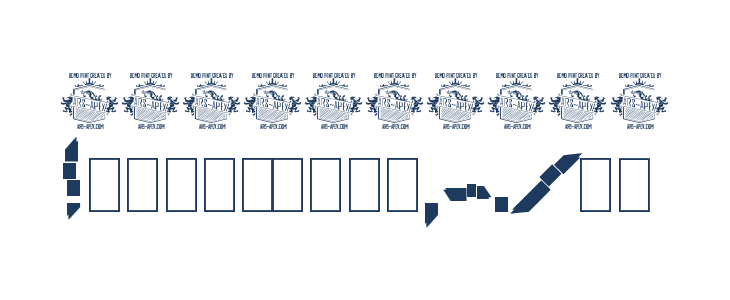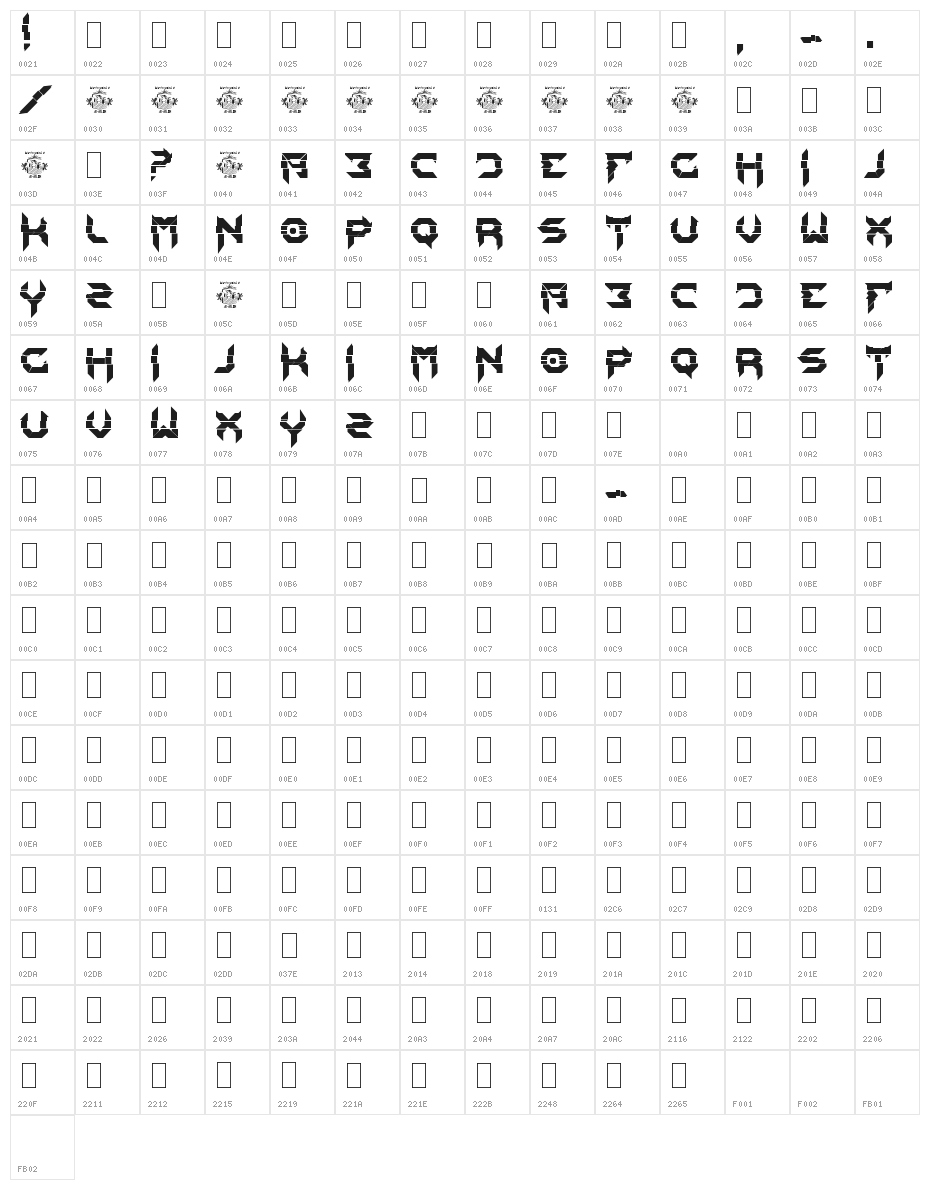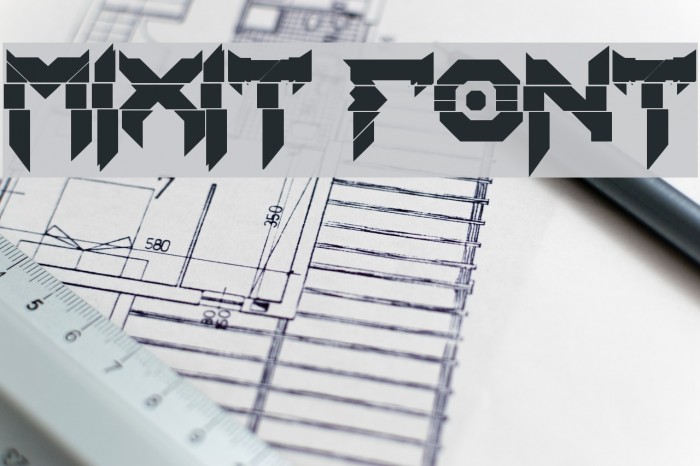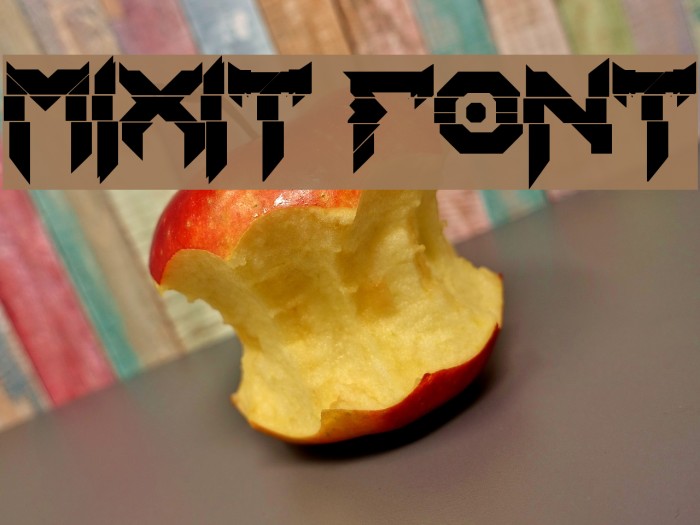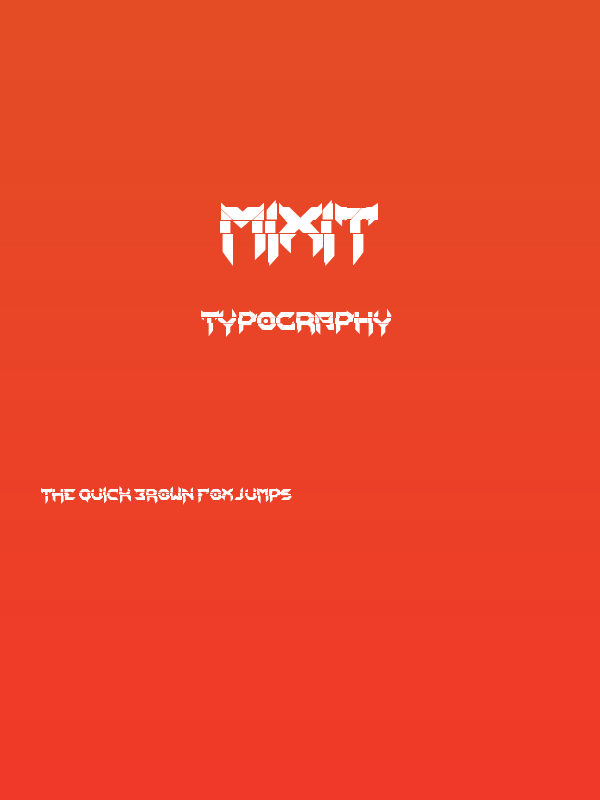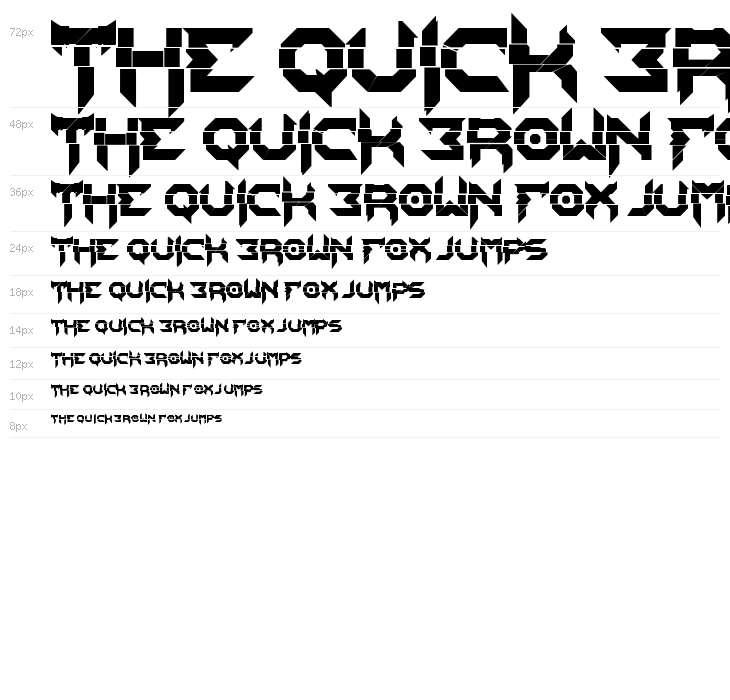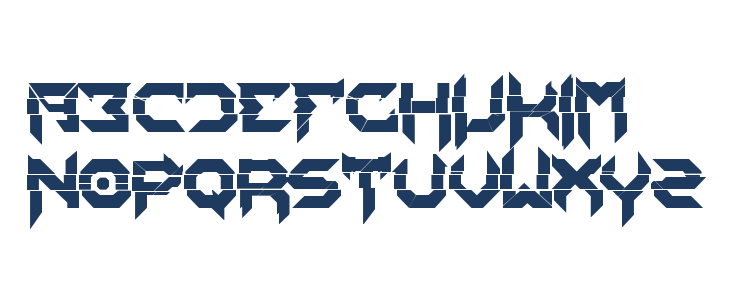
Mixit Font
Mixit Description
This font features a bold, geometric design with sharp angles and a futuristic aesthetic. The characters are constructed with a series of straight lines and angular cuts, creating a sense of movement and energy. The uppercase letters are particularly striking, with a consistent height and width that gives the font a uniform appearance. The lowercase letters maintain the same angular style, ensuring cohesion throughout the typeface. The numbers and special characters are designed to match the overall theme, making this font versatile for various applications. The unique design elements make it stand out, ideal for projects requiring a modern and edgy look.
Overall StyleFuturistic, Modern
Proposed ProjectsIdeal for sci-fi themed designs, technology branding, video game titles, and modern posters.